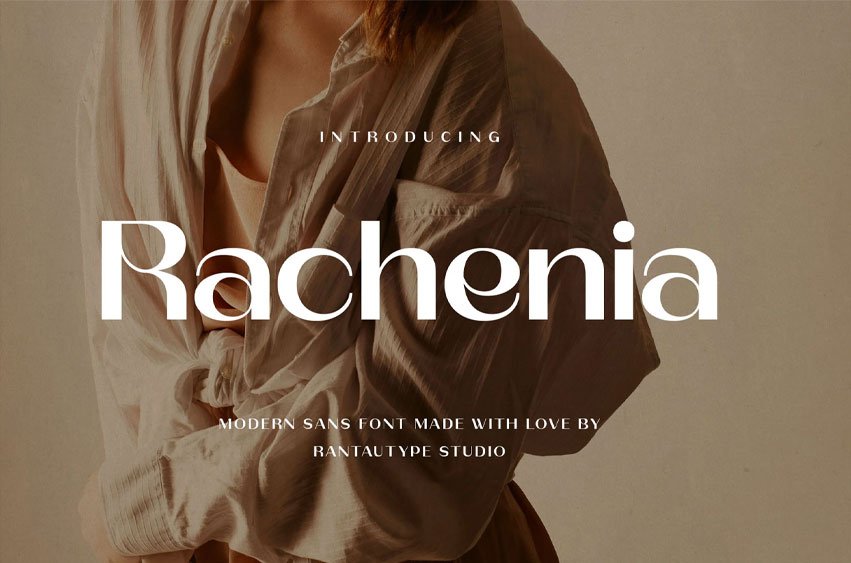
Rachenia Font is a modern typeface that seamlessly blends minimalism with sophistication. Its clean lines, subtle curves, and balanced proportions exude grace and style.
Rachenia is a perfect choice for any creative endeavor, chic, lifestyle design such as logotype, advertisements, watermark on photography, stationery, branding project, display and magazine, invitation, corporate brand, product design, label, business project, and many other projects with a modern touch.